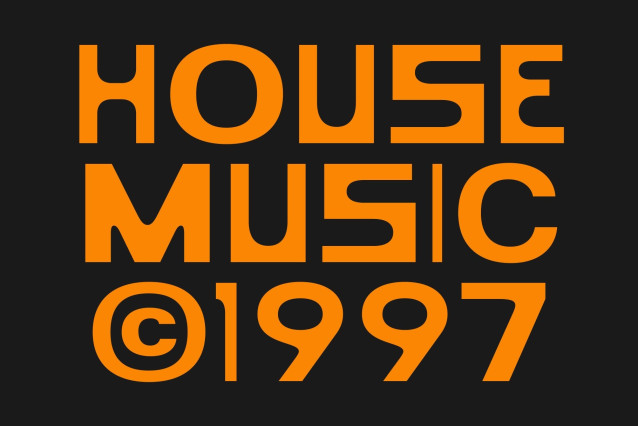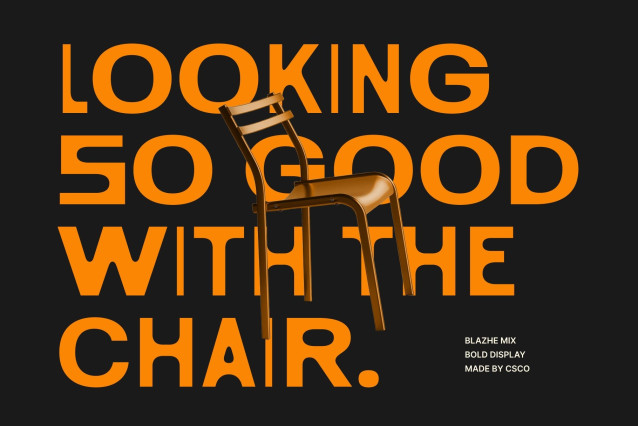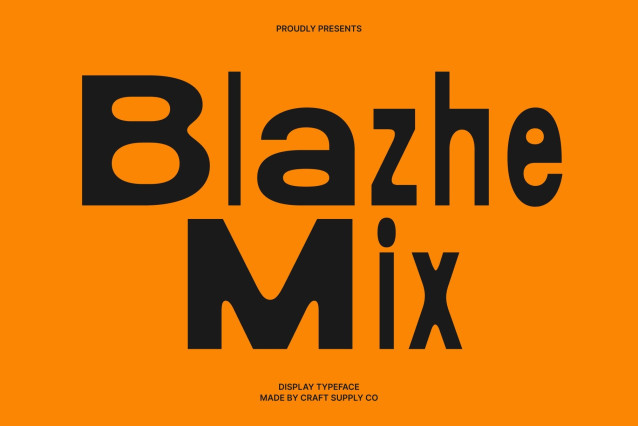
Blazhe Mix Font
Blazhe Mix – Modern Corporate Sans Serif: Clean Precision with Contemporary Confidence
Contemporary Corporate Sans with Mixed Weight Style
This is a modern sans serif font crafted to deliver clarity, professionalism, and a forward-thinking visual tone. Designed for corporate and professional environments, this typeface introduces a distinctive mixed-weight concept that adds subtle personality while preserving a clean and polished appearance. It creates a confident typographic voice that feels both reliable and contemporary.
A Smart Combination of Regular and Bold Characters
This font stands out through its thoughtful fusion of regular and bold letterforms. This balanced mix creates a refined visual rhythm that enhances hierarchy and improves visual interest without compromising simplicity. The contrast between weights gives layouts a dynamic yet controlled feel, allowing designers to highlight key messages while maintaining overall harmony.